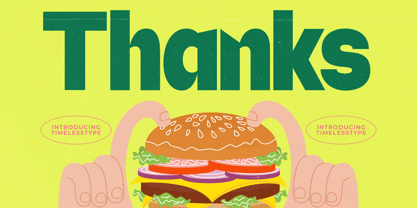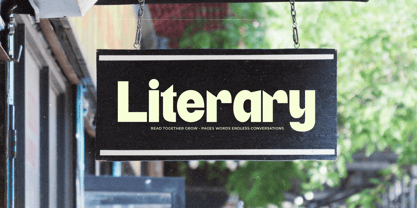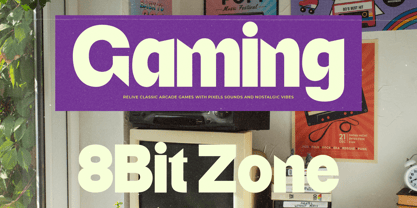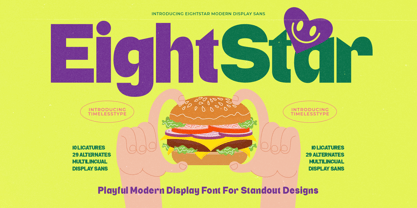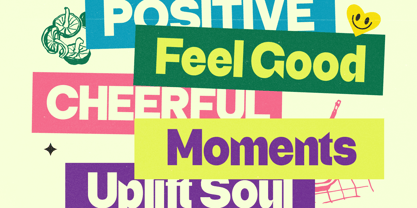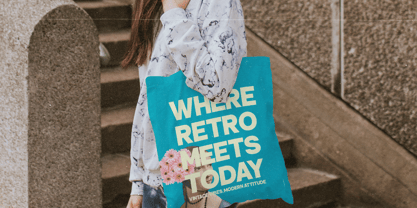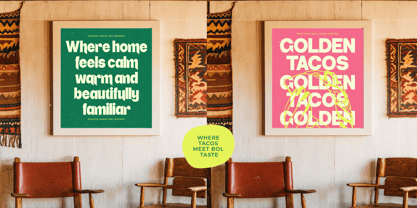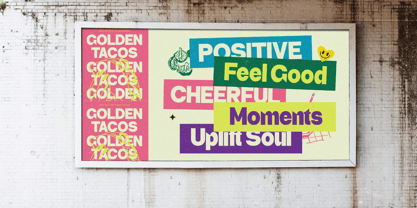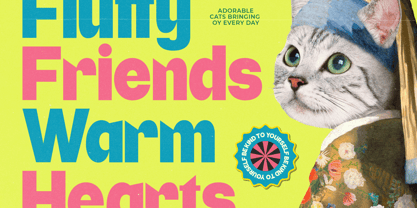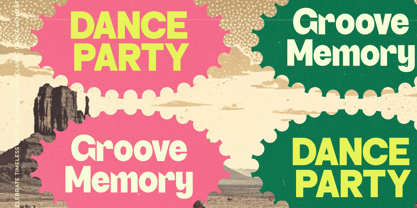
Eight Star
by Timelesstype Studio
The Eight Star Font Family was designed by Heru Utama Putra and published by Timelesstype Studio. Eight Star contains 2 styles and family package options.
EightStar is a playful modern display sans crafted with bold shapes, rounded geometry, and a vibrant personality that instantly stands out. Featuring 10 ligatures, 29 alternates, and full multilingual support, this typeface delivers strong visual impact for food branding, packaging, social media graphics, advertising, and expressive editorial layouts. With its fun, friendly character design and smooth contemporary curves, EightStar brings a lively pop-style energy to any creative project.